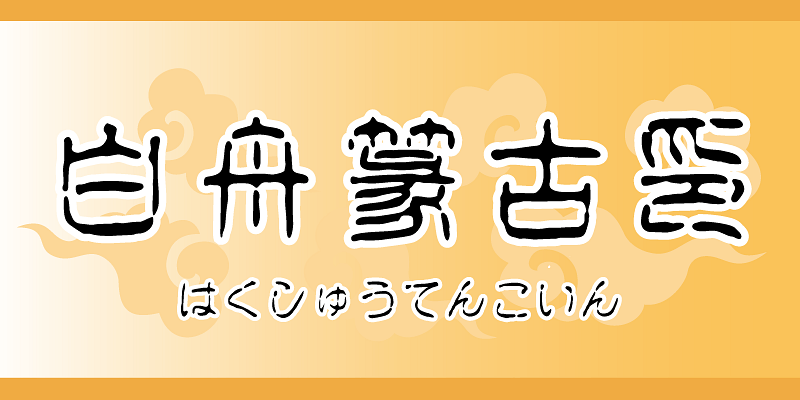
HOT-Tenkoinkk Font Free Download is a unique and stylized Japanese-inspired typeface designed for impactful, creative projects. With its bold strokes, sharp angles, and traditional calligraphic influence, this font is ideal for headlines, posters, signage, branding, and cultural-themed designs that require a strong and distinctive visual identity.
HOT-Tenkoinkk combines elements of historical Japanese script with modern typographic design, creating a powerful and expressive character. It is perfect for designs that aim to evoke authority, strength, and artistic flair, making it an excellent choice for high-impact visual content and unique branding.